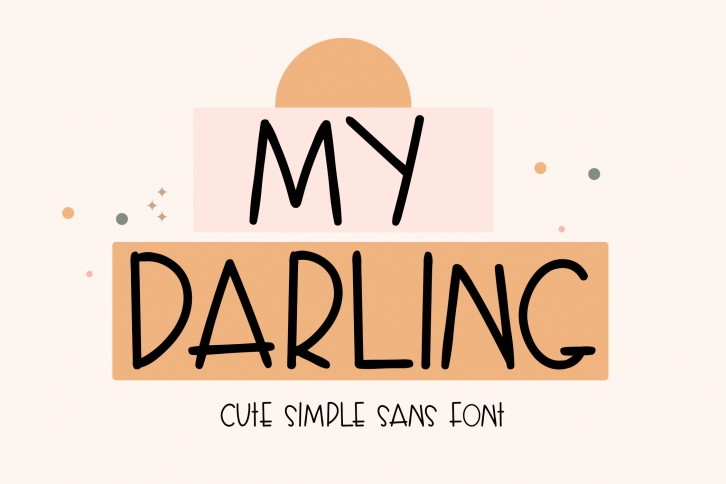
My Darling is a cool and friendly handwritten font, perfect for children designs, chalkboard quotes, and teaching materials! Its authentic look will add a personal and realistic feel to your designs.